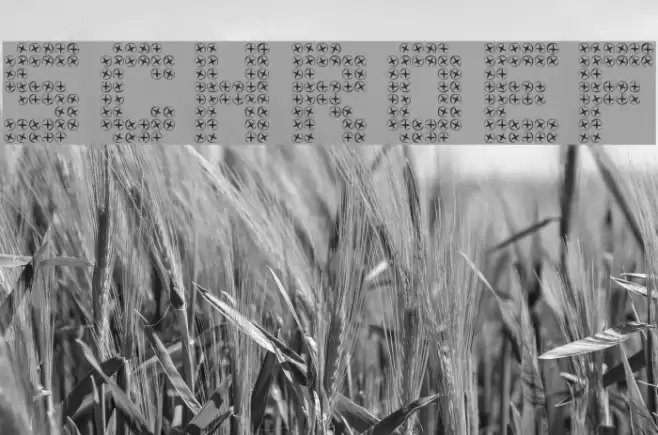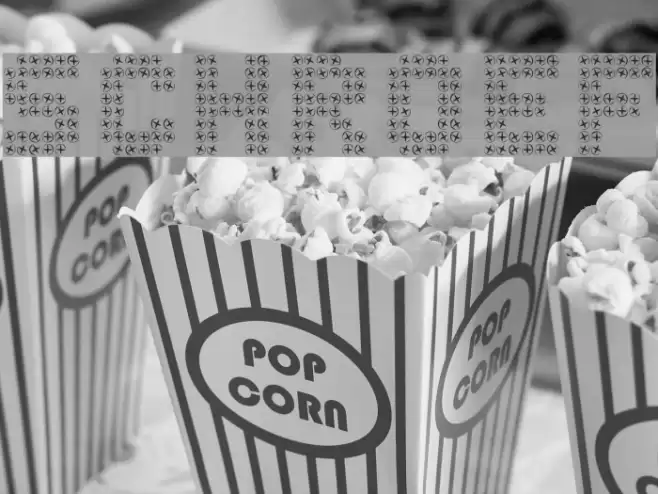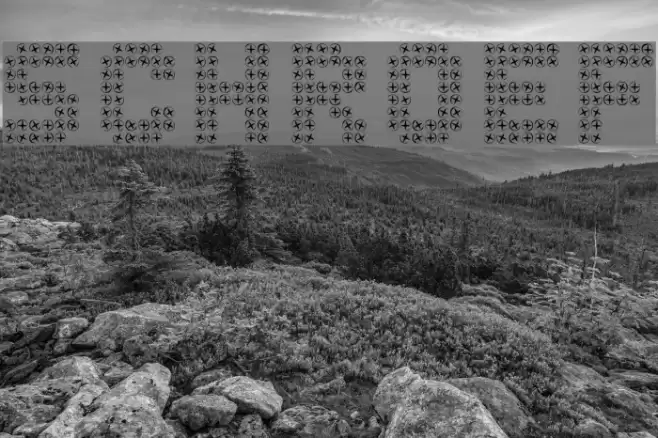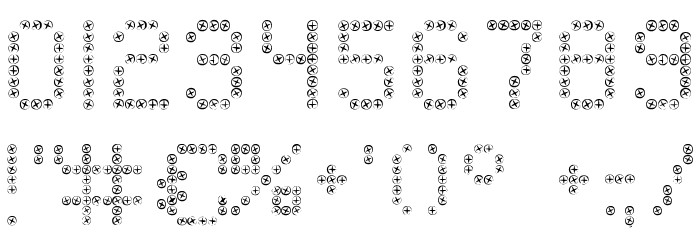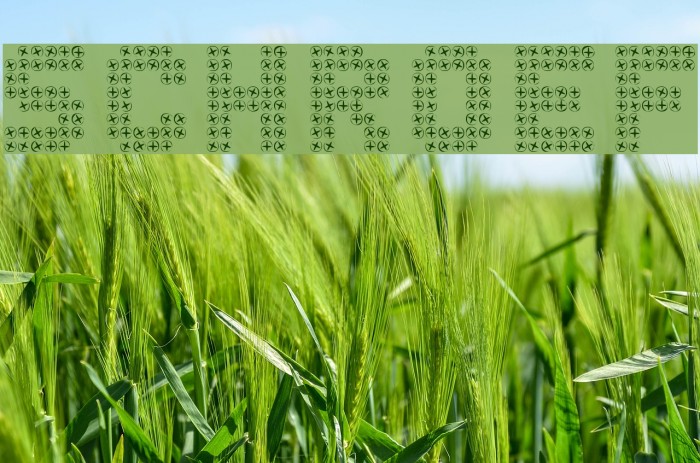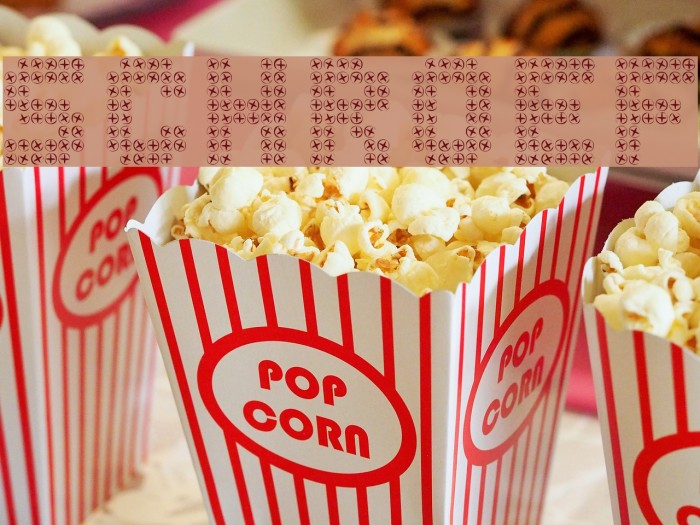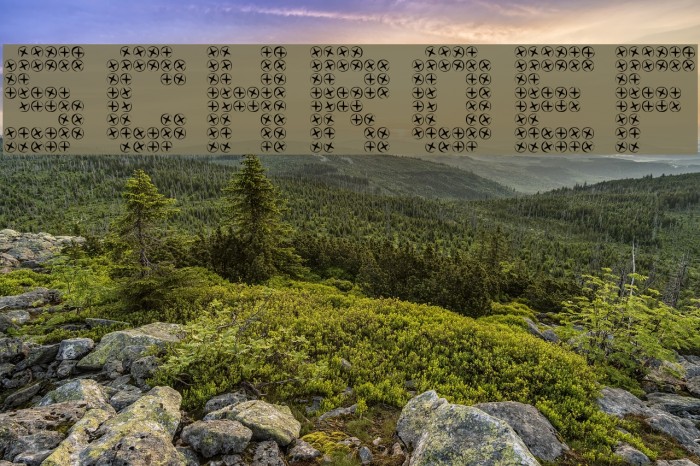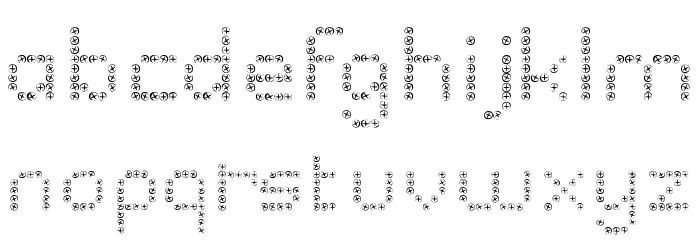
SCHROEF Font
SCHROEF Description
This font is a unique decorative style composed entirely of small screw-like symbols arranged to form each character. The design is intricate, with each letter and number crafted from a series of repeating circular and linear elements, giving it a mechanical and industrial feel. The characters are evenly spaced, maintaining a consistent pattern throughout the alphabet and numerals. This font stands out due to its unconventional approach, making it ideal for projects that require a distinct and eye-catching typographic element. The overall appearance is bold and structured, with a medium contrast in stroke thickness, ensuring legibility despite its complex design.
A decorative font made of screw-like symbols, offering a mechanical and industrial aesthetic from Uncategorized fonts.
- Proposed Projects: Ideal for industrial-themed posters, mechanical design presentations, or creative branding projects that require a unique and bold typographic statement.